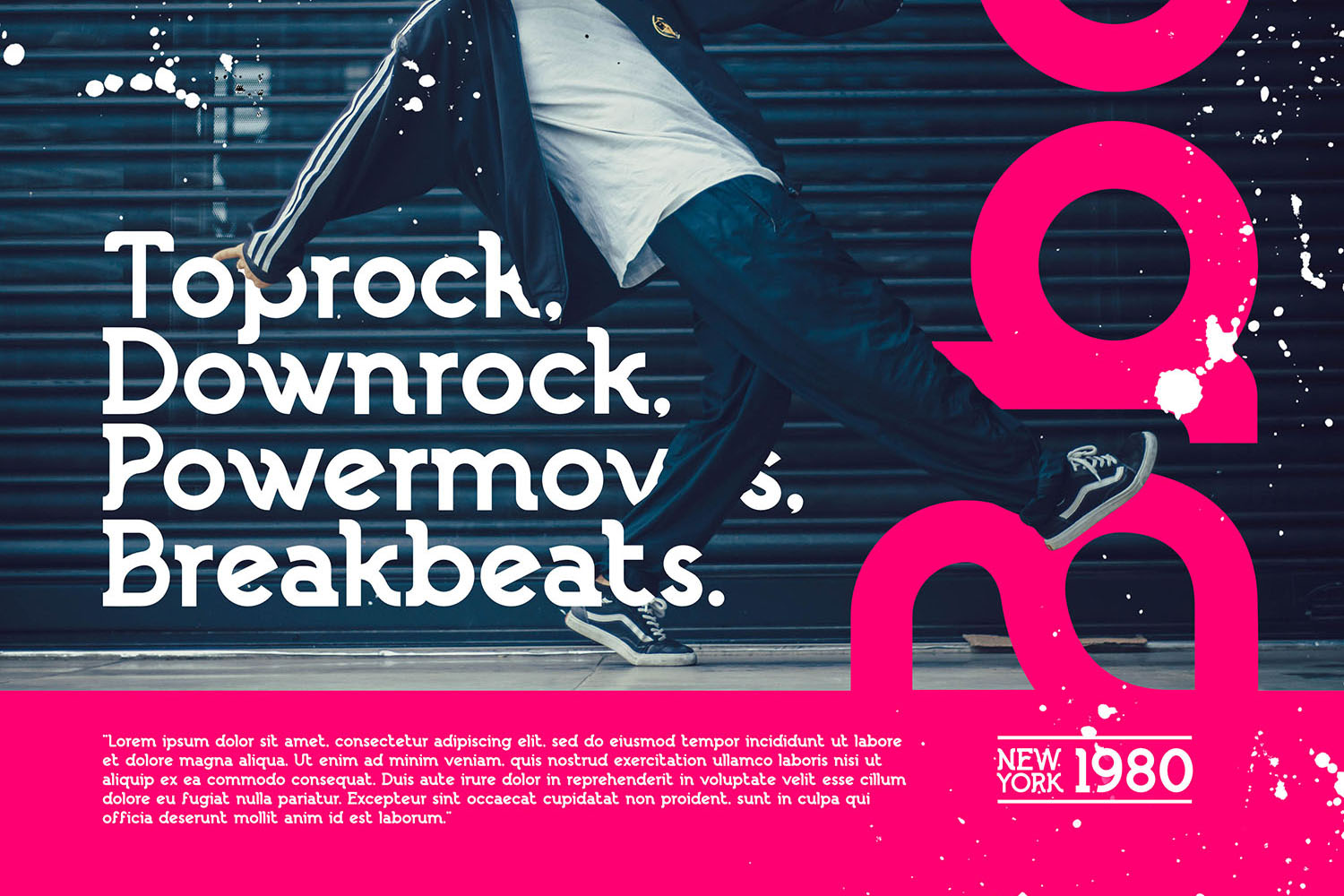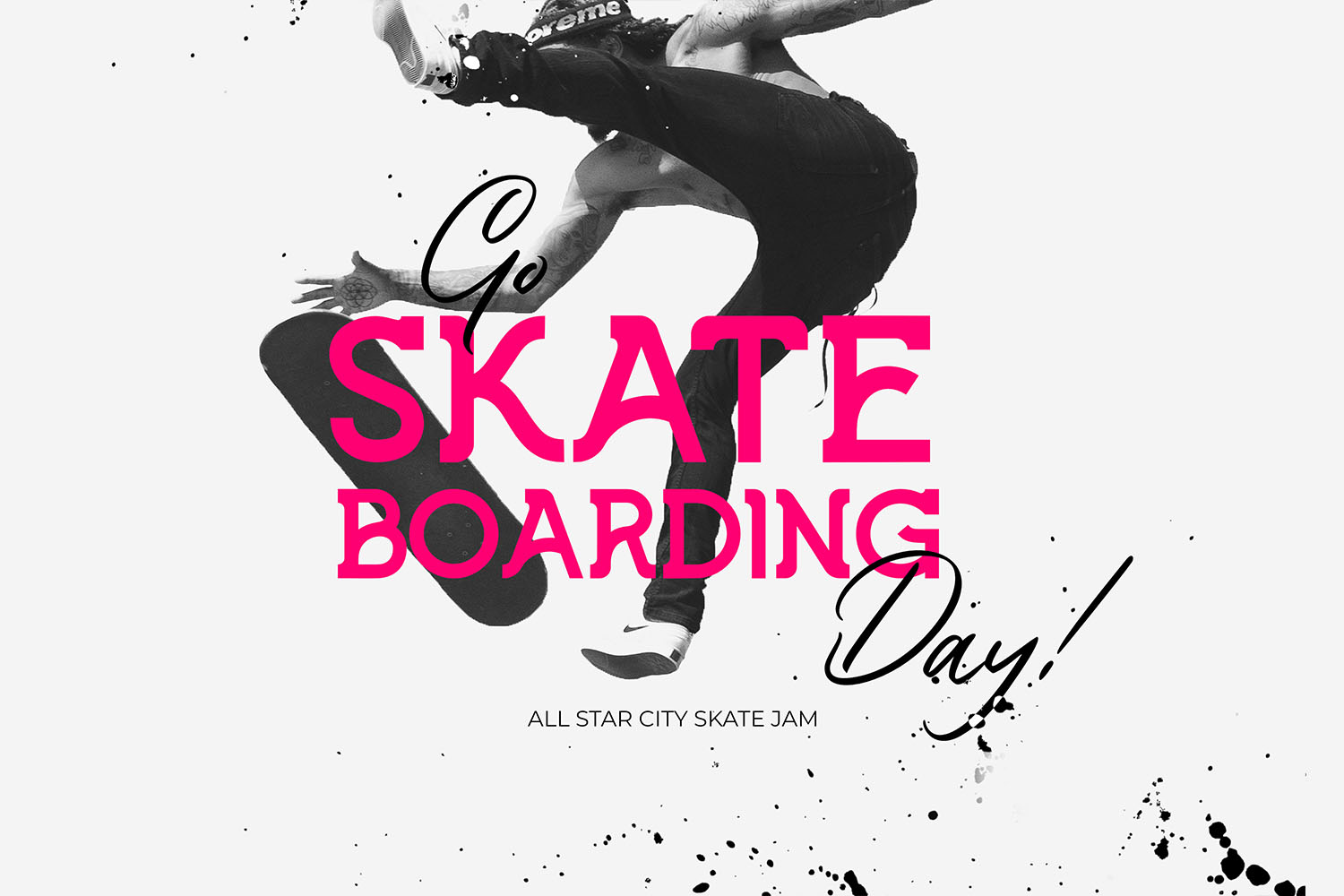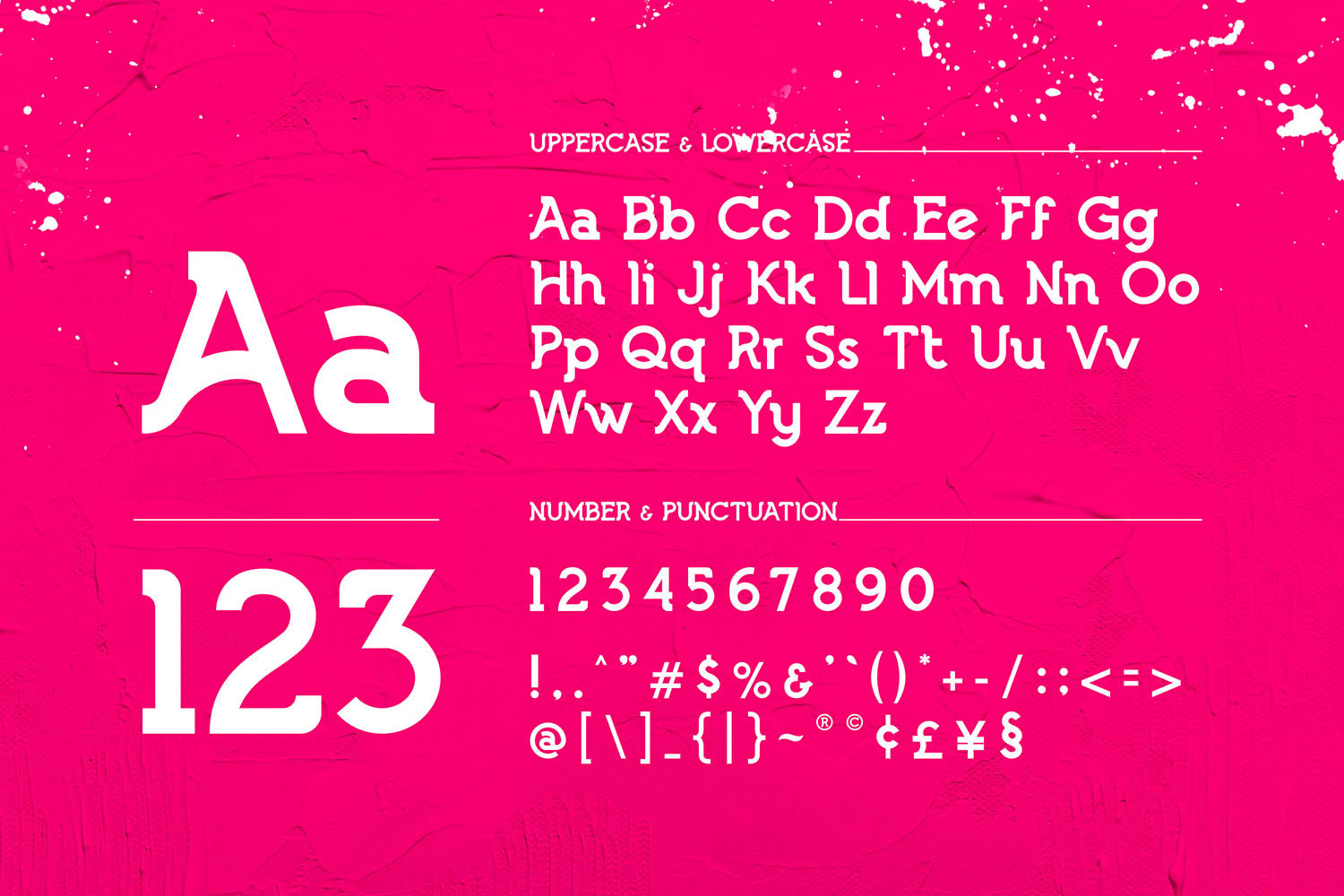
Lebron Free Font
Lebron Free Font is a bold and uniquely designed slab serif font. This font is imposing and as a result, it will easily match a wide range of creations that require a distinct touch. This free typeface was designed by a talented Ikiiko Type. If you like it don’t forget to check out the full version.